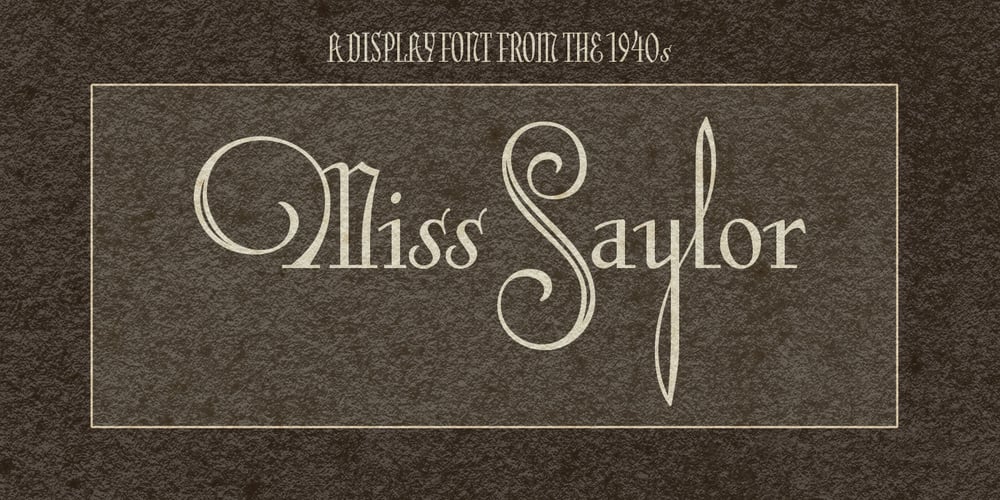
Miss Saylor Font Family was designed by Jeff Rubow and published by Lindstrom Design. Miss Saylor contains 1 styles and family package options. Miss Saylor is a decorative display font inspired by an old box that I found in the basement of my 101-year-old aunt. All that was printed on the front were the words: “Miss Saylor’s French creams fruits and chocolates.” Looking at the type was like stepping into a lost century of glamor girls, big bands, and jitterbug dancing – a time when Christmas Cards and handwritten letters were mailed for 3¢. It was also a time of horrors and unimaginable deprivations. War raged across Europe, Asia, Africa and the South Pacific. It’s here in one typeface – all the baggage, the music, the mystique of a world most of us will never know except through the art that was created from that time. This typeface is a visual serenade to preserve a sparkling remnant of that era. So, enjoy. I hope it puts you ‘In the Mood.’